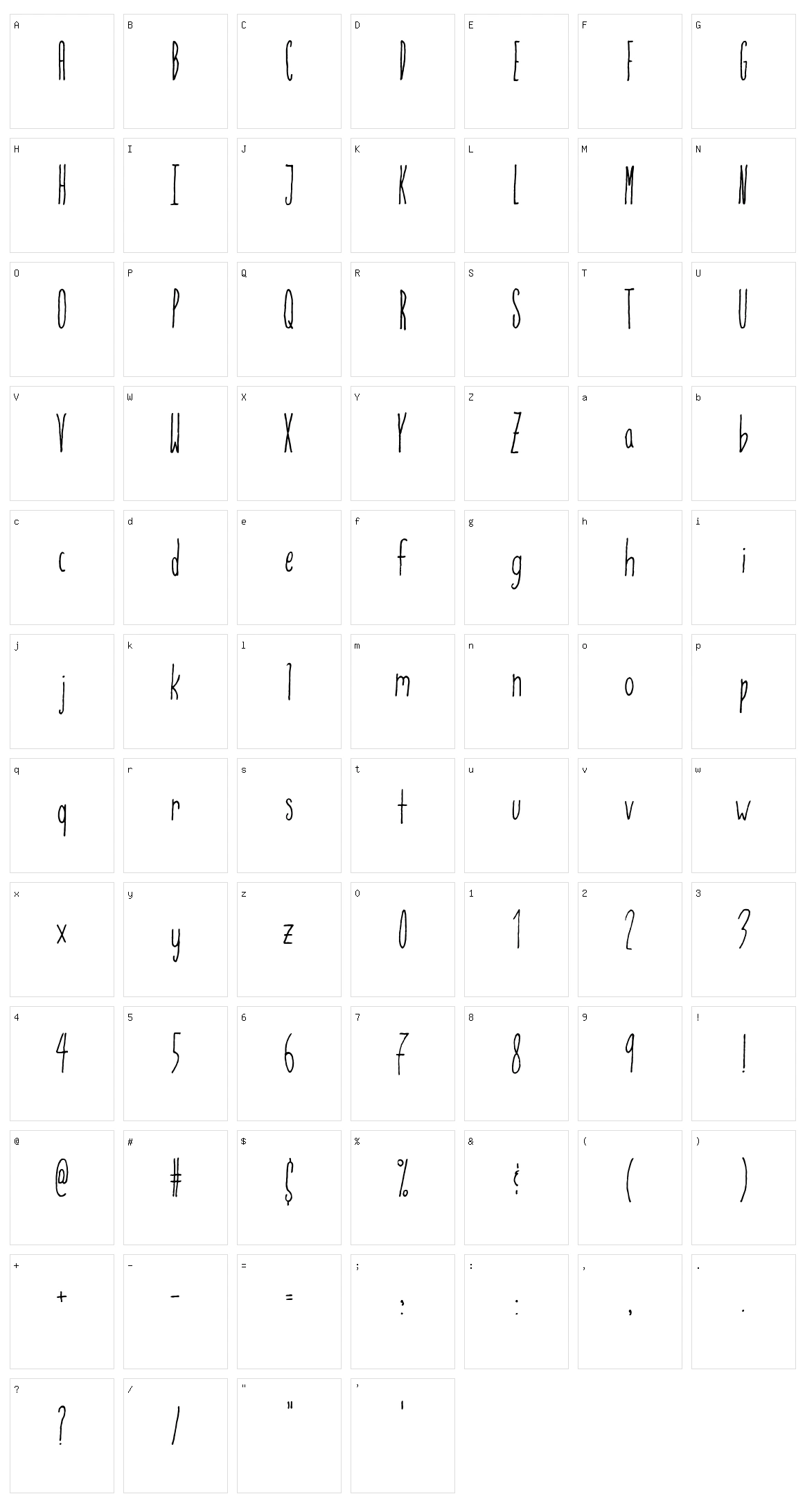
The free font Ballad of a Thin Man is carefully designed by Harry Blakeman, showcasing a thoughtful balance of creativity and usability and falls under the Script font style. When you download the ZIP file, it contains only 28.1 KB of font files, making it lightweight and quick to download. Please review the license details below to understand permitted usage and distribution rights. If license information is not available, we recommend using this font for personal projects only or contacting the author directly for commercial usage permissions.